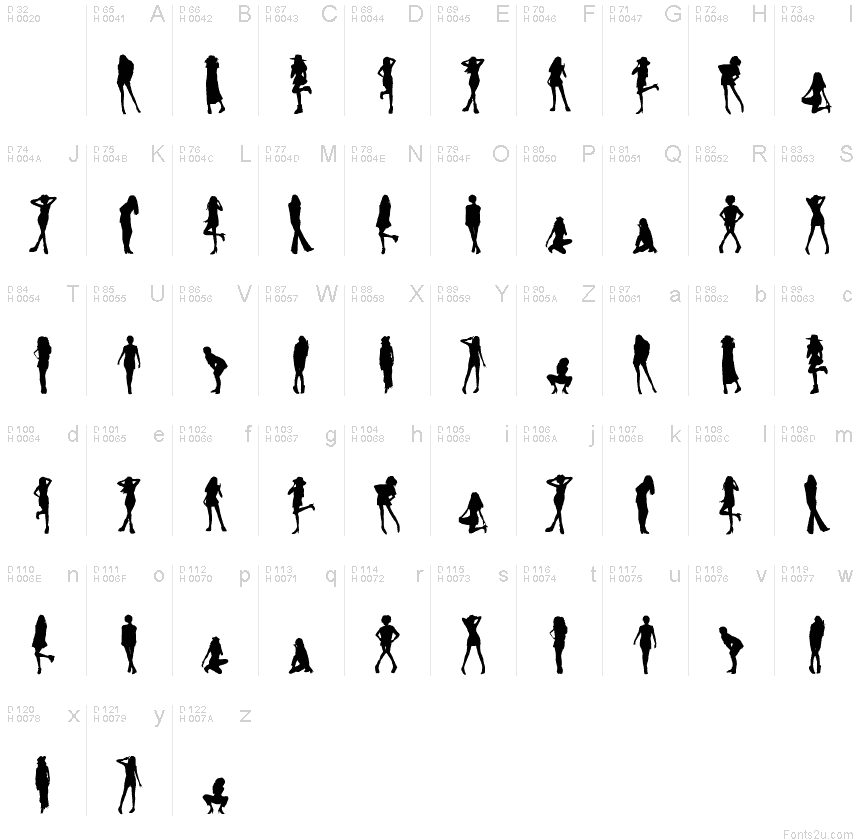
Shibuya Now! by Yumi Manabe is a free Unicode pictorial font built around fashionable female silhouettes. The figures vary in pose, hairstyle, and clothing, with crisp outer contours and enough individual detail to suggest a lively street-style crowd.
Fashion and city nightlife are the clearest themes, making the font useful for boutique branding, event posters, and magazine features. It can also lend a human, editorial element to club flyers or retail packaging. The changing poses can form a decorative lineup or become part of a fashion illustration.
Yumi Manabe